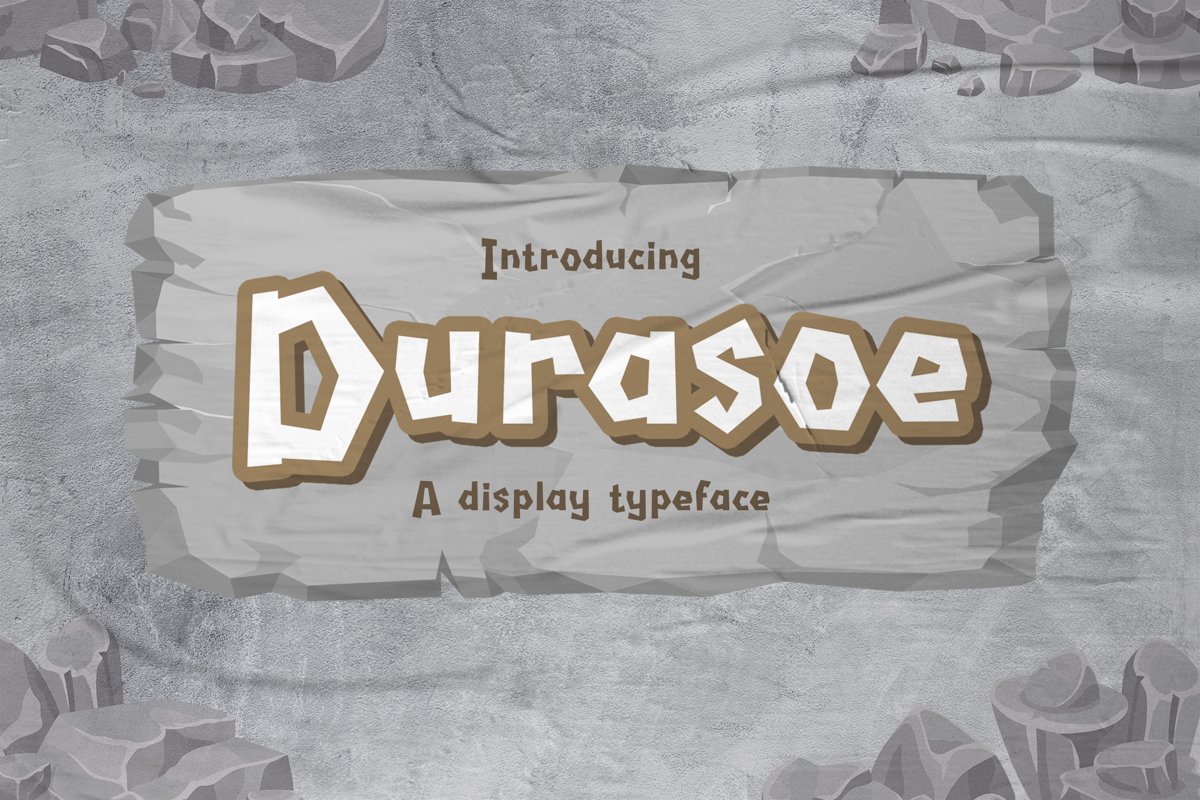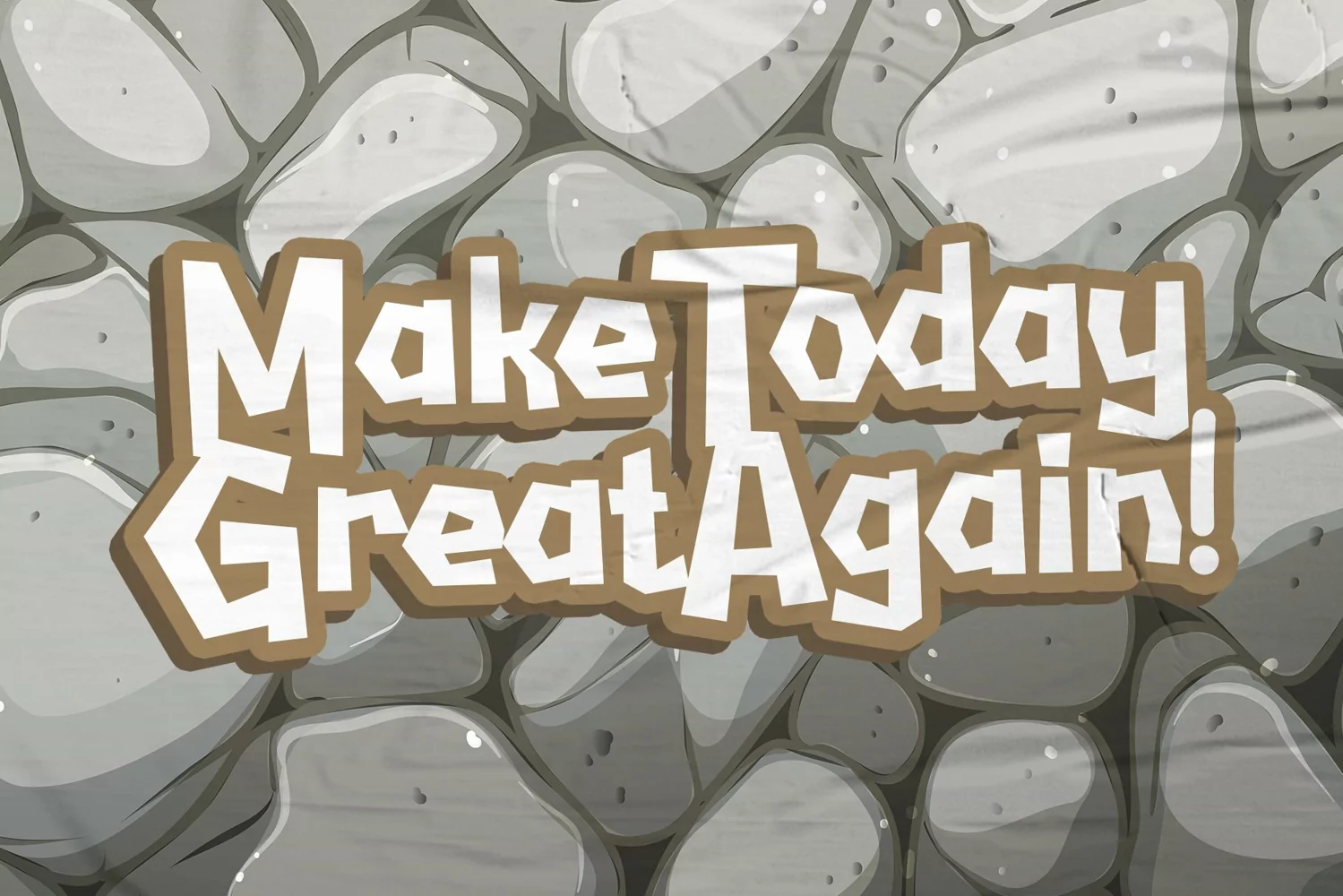
Durasoe is a display typeface. Perfect for display, quotes, print, t-shirt, mug, pillow, event needs, business card, branding, logo, logotype, merchandise, packaging and many more.